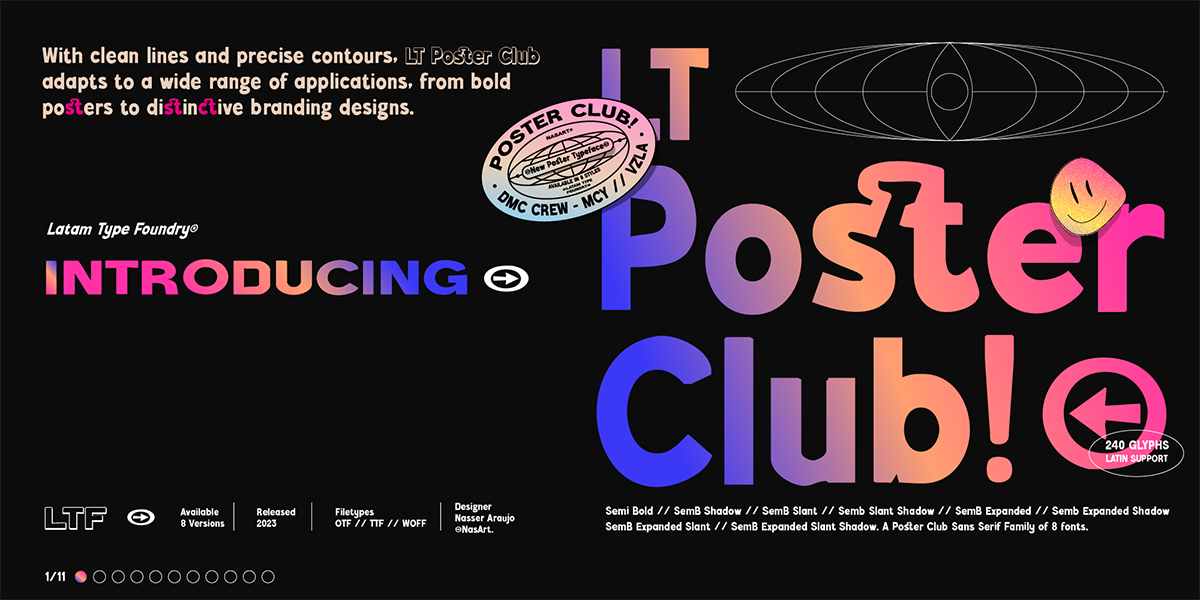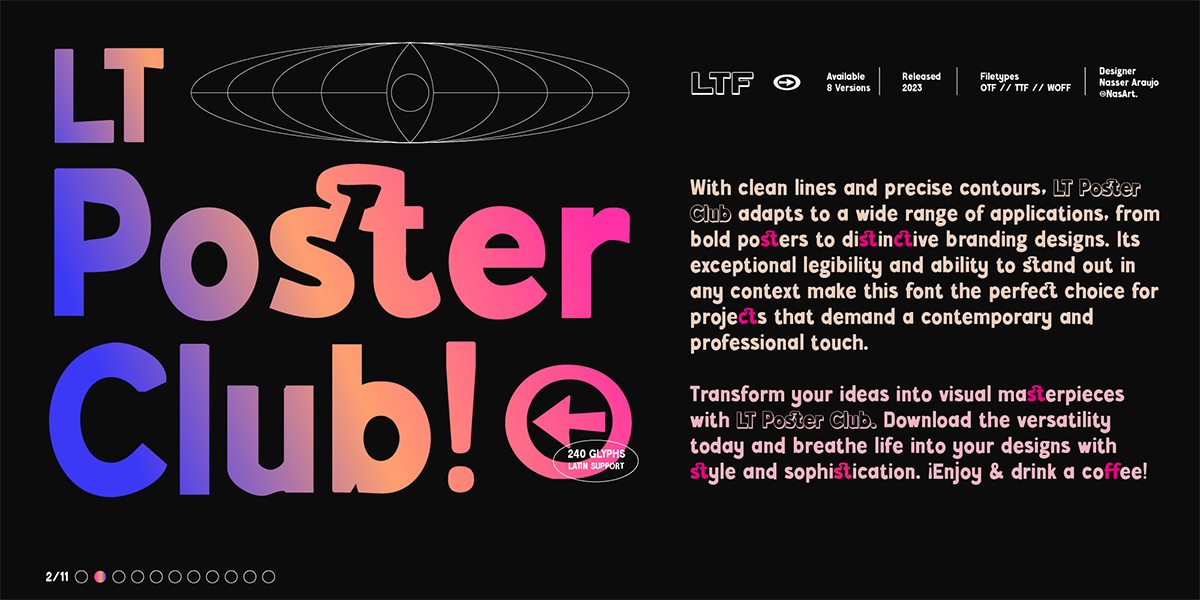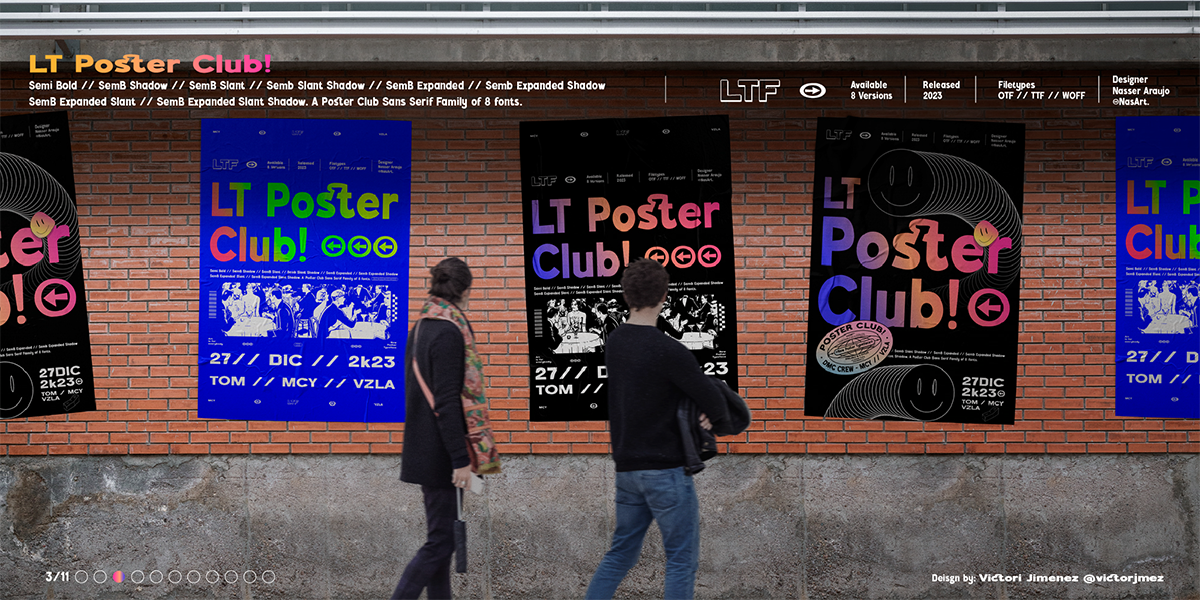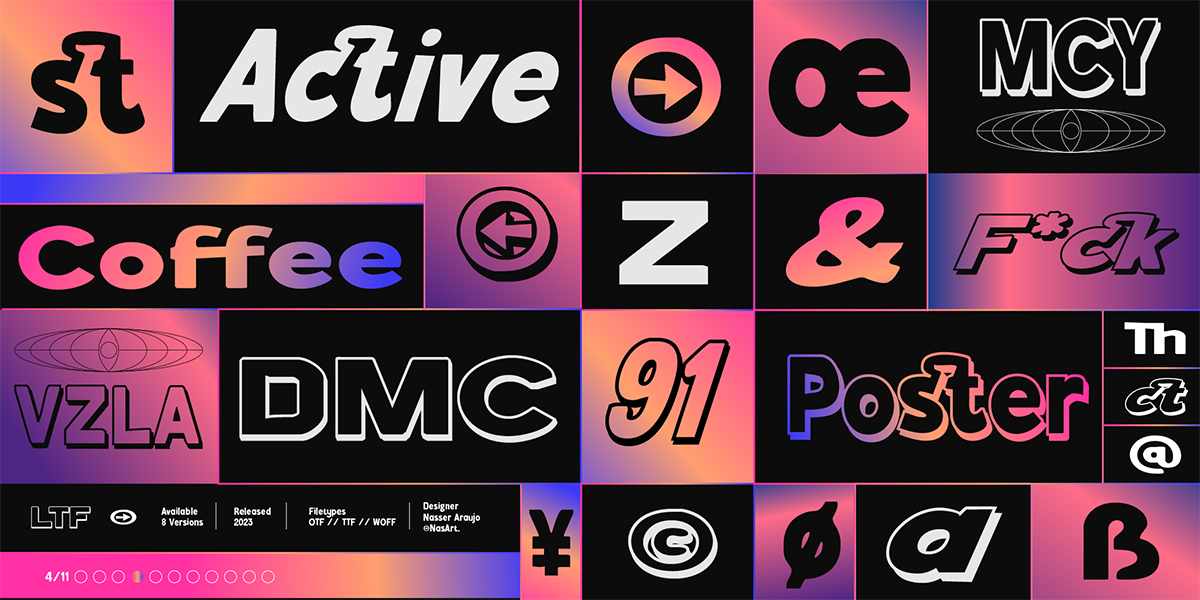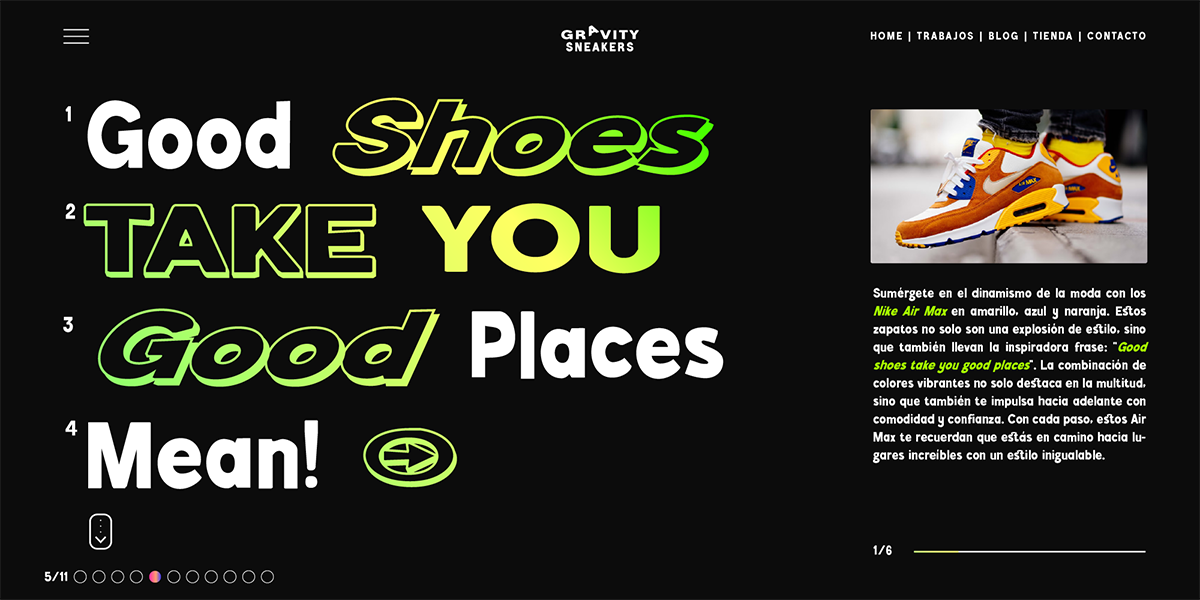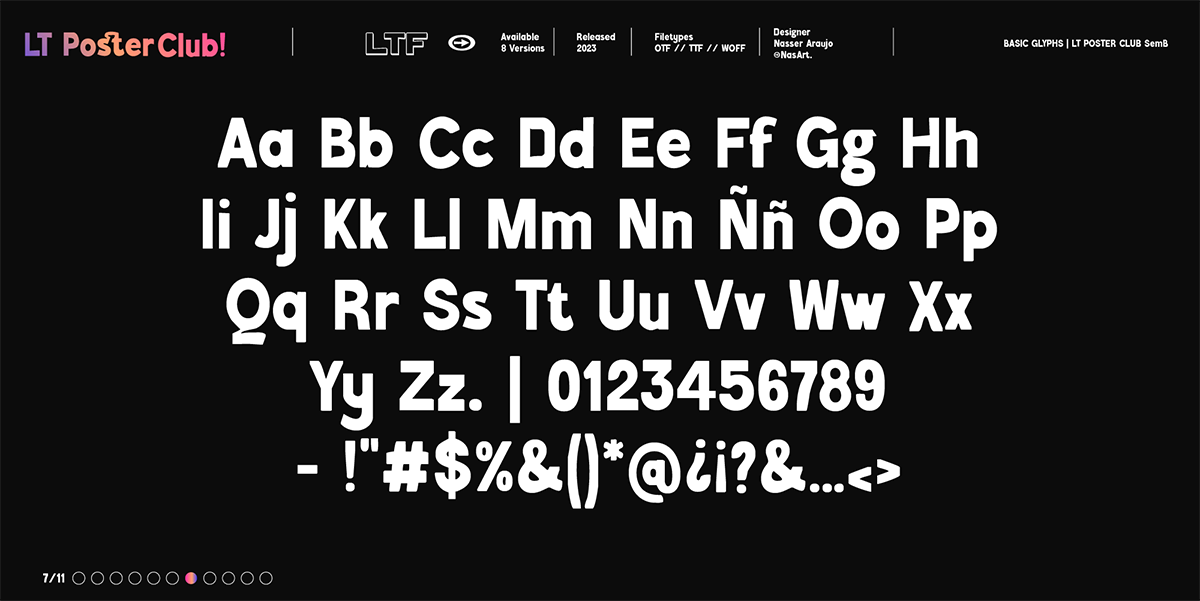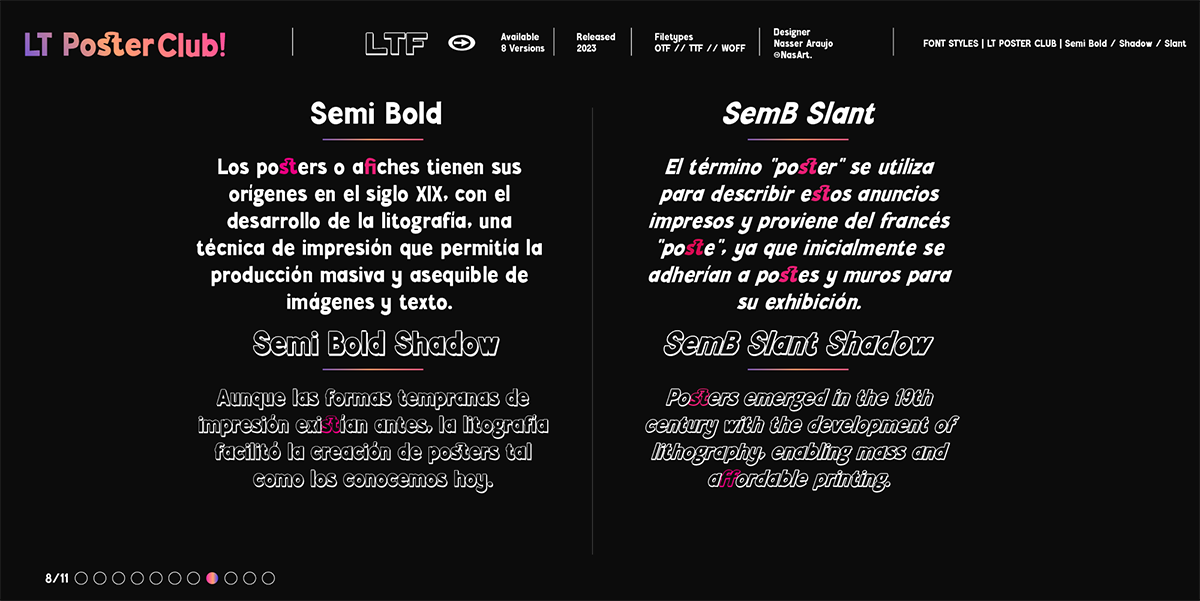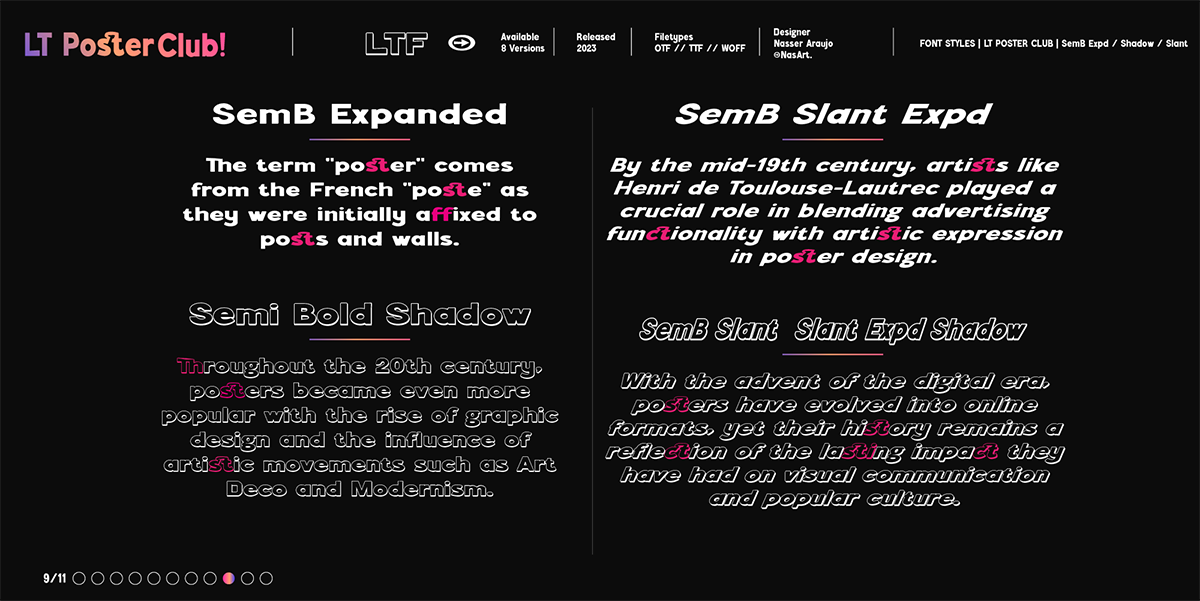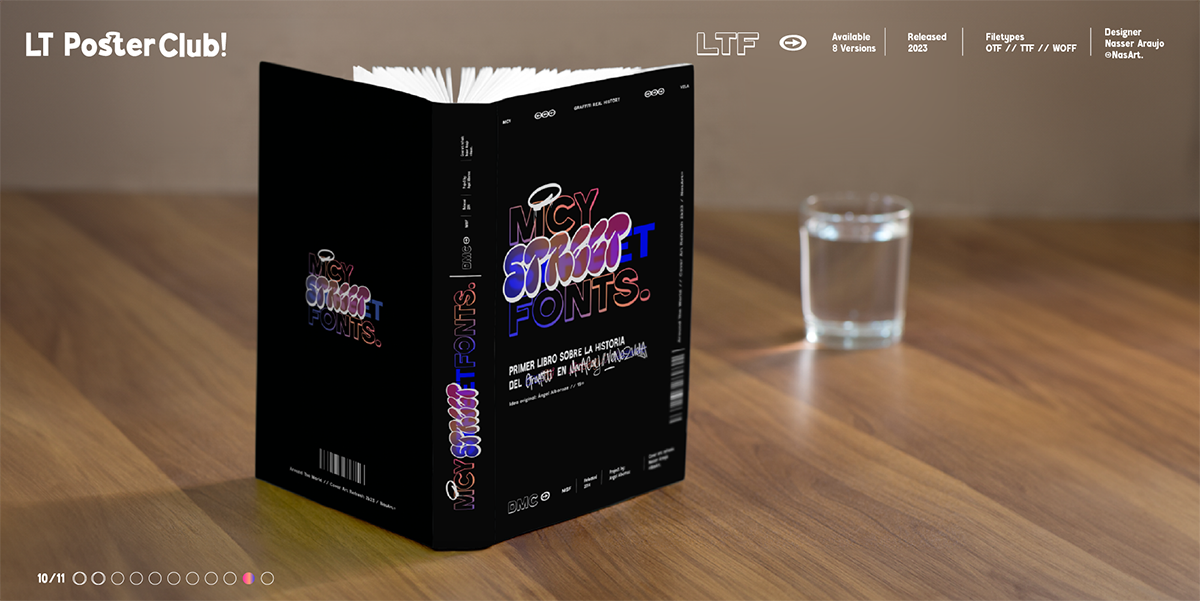
LT Poster Club – Display Font With clean lines and precise contours, LT Poster Club adapts to a wide range of applications, from bold posters to distinctive branding designs. Its exceptional legibility and ability to stand out in any context make this font the perfect choice for projects that demand a contemporary and professional touch. Transform your ideas into visual masterpieces with LT Poster Club. Download the versatility today and breathe life into your designs with style and sophistication. ¡Enjoy & drink a coffee!